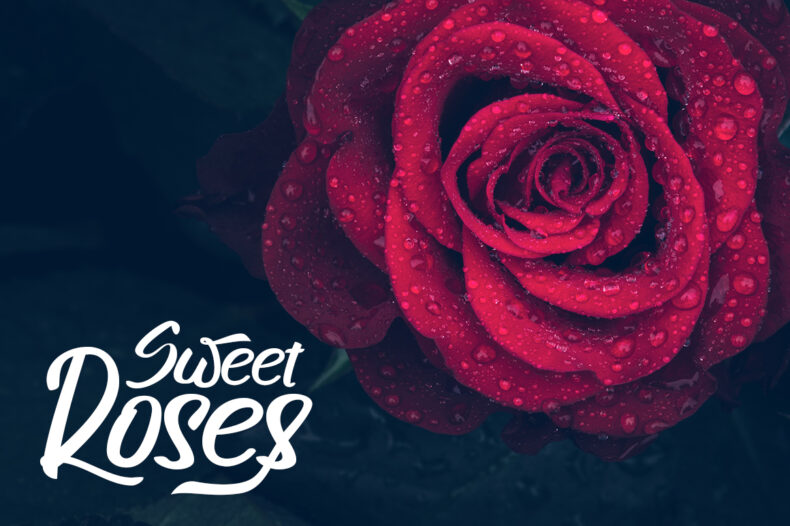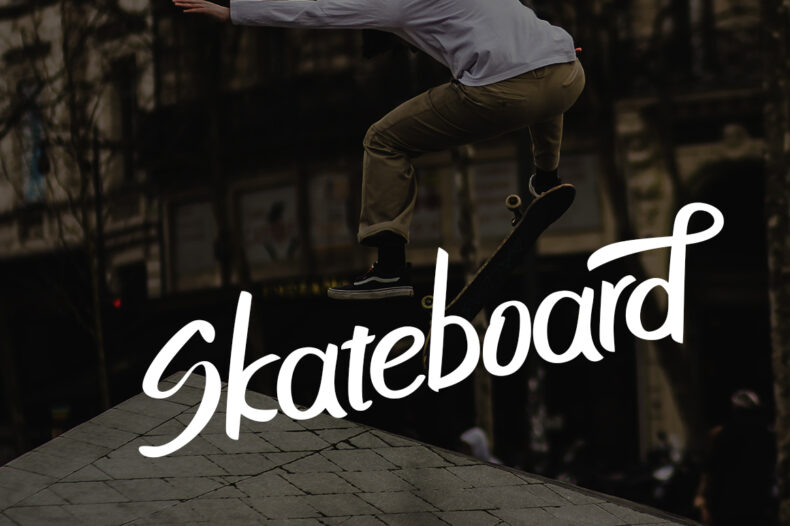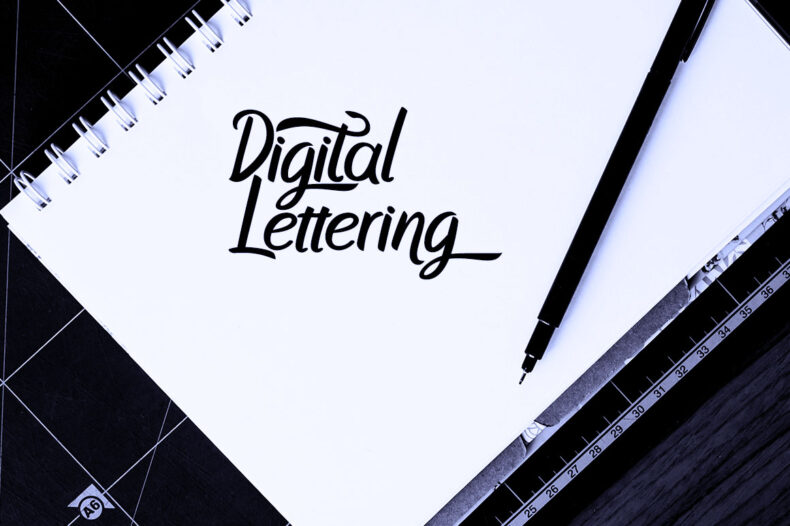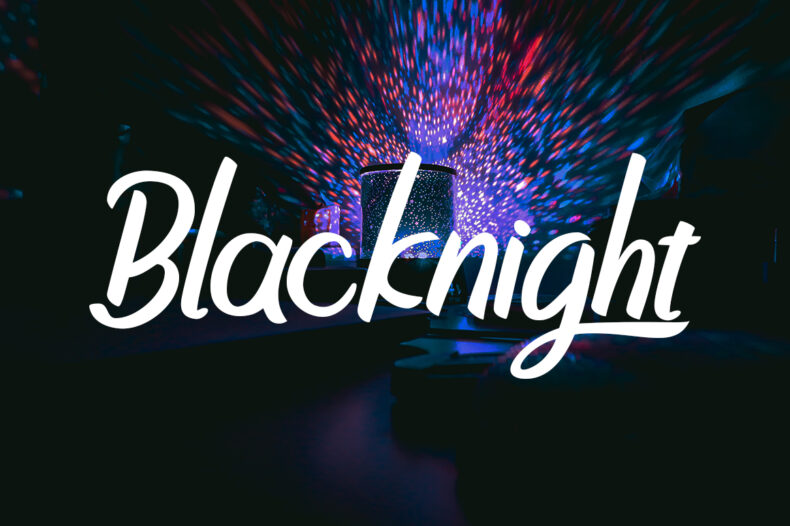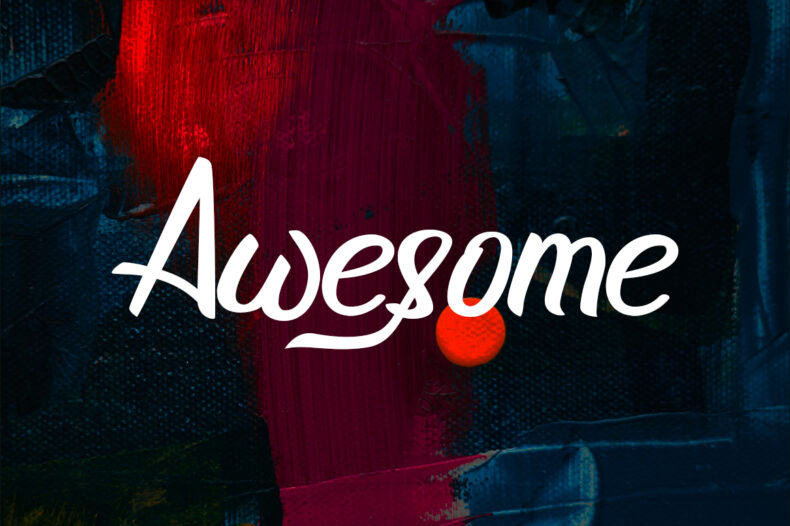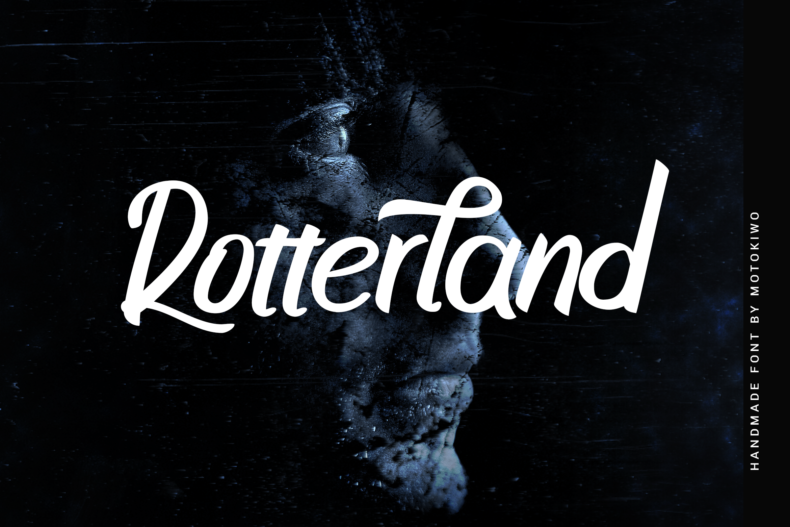
Rotterland is a brush-lettered font with an urban character and stylistic alternates. It offers expressive options for display words and logo concepts.
Rotterland is designed for lettering-led compositions where the form of a short word matters. Explore its alternates when shaping a brand name, poster title, or urban-inspired graphic.
The font includes more than 300 glyphs, including capitals, lowercase letters, numerals, punctuation, currency symbols, accents, and stylistic alternates. Check your required characters and try different forms to refine the final word shape.